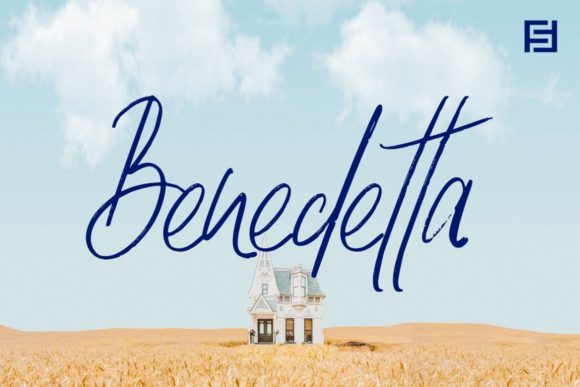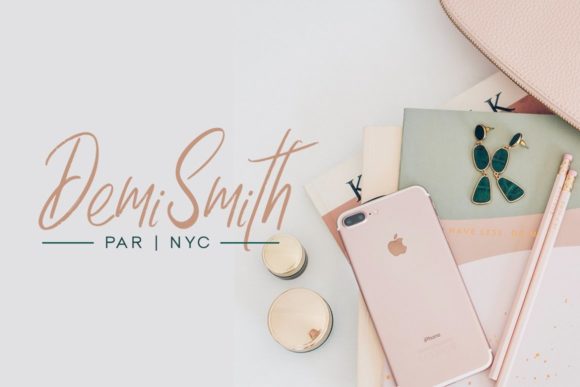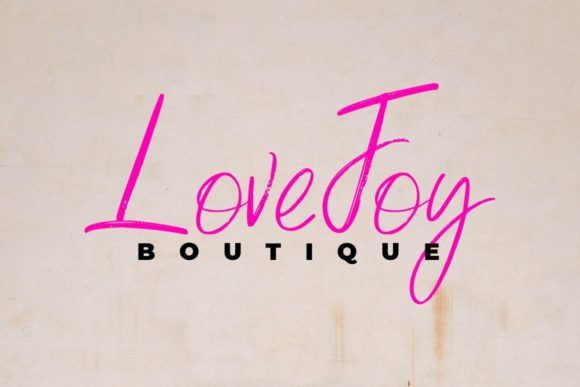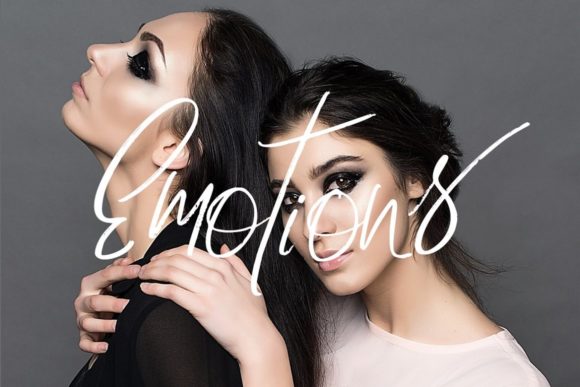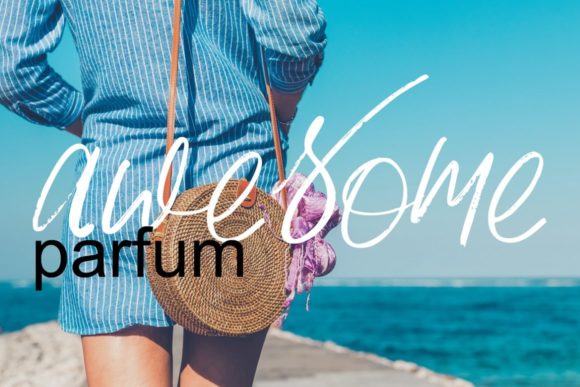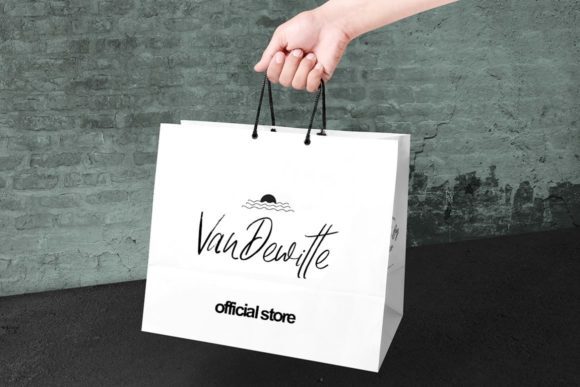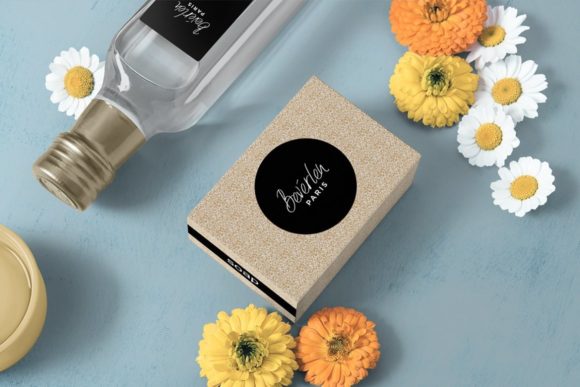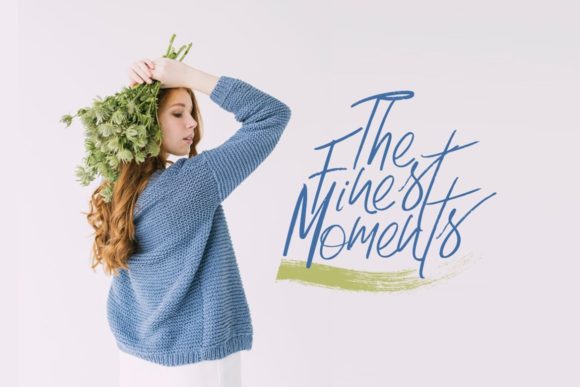
Benedetta Font
About Benedetta Font
Benedetta is a romantic and cursive brushed script font. It has a classy, elegant and modern look that can be used for logos, branding, invitations, stationery, wedding designs, social media posts, and much more!